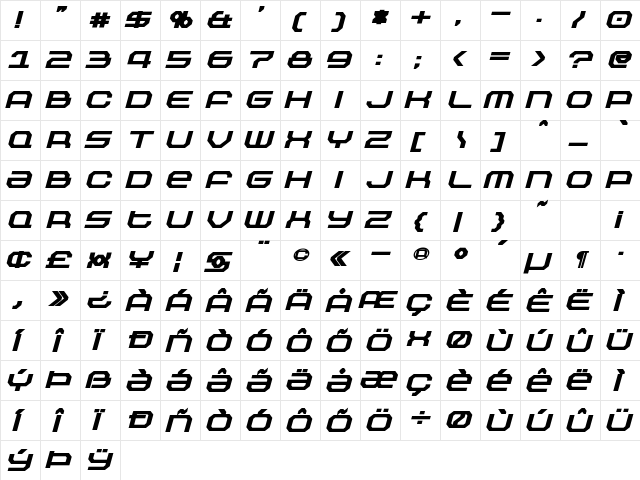
Outland Black Italic
| Foundry | Pixel Sagas |
| Designer | Neale Davidson |
Design Context for Outland Black Typeface
Outland Black offers clean, dependable letterforms without strong stylistic allegiance, making it a practical choice for designers who need flexibility. The slanted form adds forward momentum and visual energy.
Pro Tip: Use Outland Black for emphasis, pull quotes, and subheadings where its slanted energy can add rhythm to the layout.